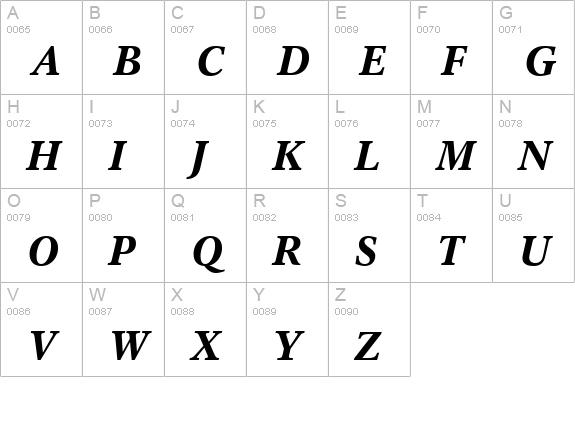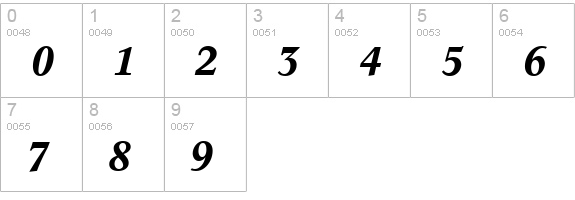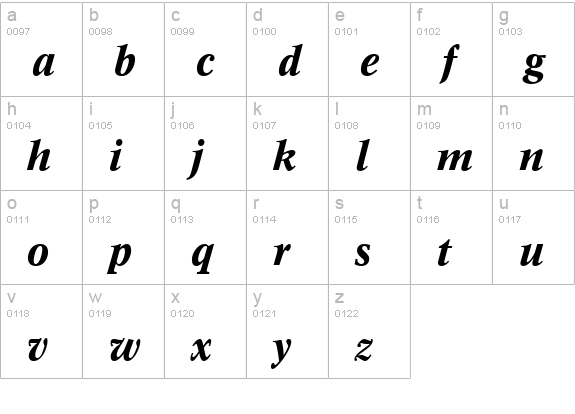
12 Concorde** Bold Italic 14319 Font Details
12 Concorde** Bold Italic 14319 is a strong, high-contrast, italic variant in the 12 typeface family \xE2\x80\x94 well suited to headlines, attention-grabbing titles, and strong calls-to-action.
The 12 Concorde Bold Italic 14319 font is a sleek and modern typeface that exudes elegance and sophistication. Its bold and italic design adds a touch of flair to any project, making it perfect for headlines, titles, and branding materials. With its clean lines and sharp edges, this font commands attention and conveys a sense of professionalism. Whether you're working on a design project, creating marketing materials, or crafting a stylish invitation, the 12 Concorde Bold Italic 14319 font will elevate your work to the next level. Its versatility allows for use in a variety of applications, from print to digital media. Best of all, this font is freely available to download at FontsMarket.com. So go ahead and add this stylish typeface to your collection today and watch your designs come to life with a touch of sophistication and elegance.